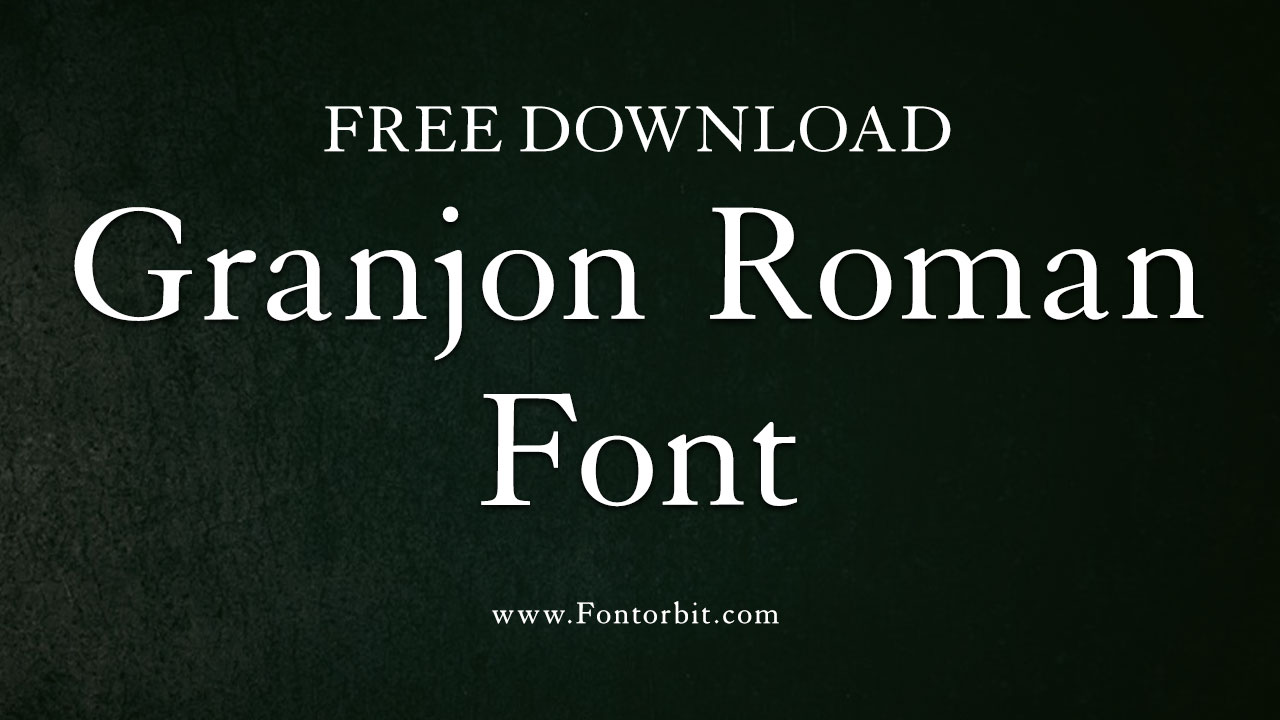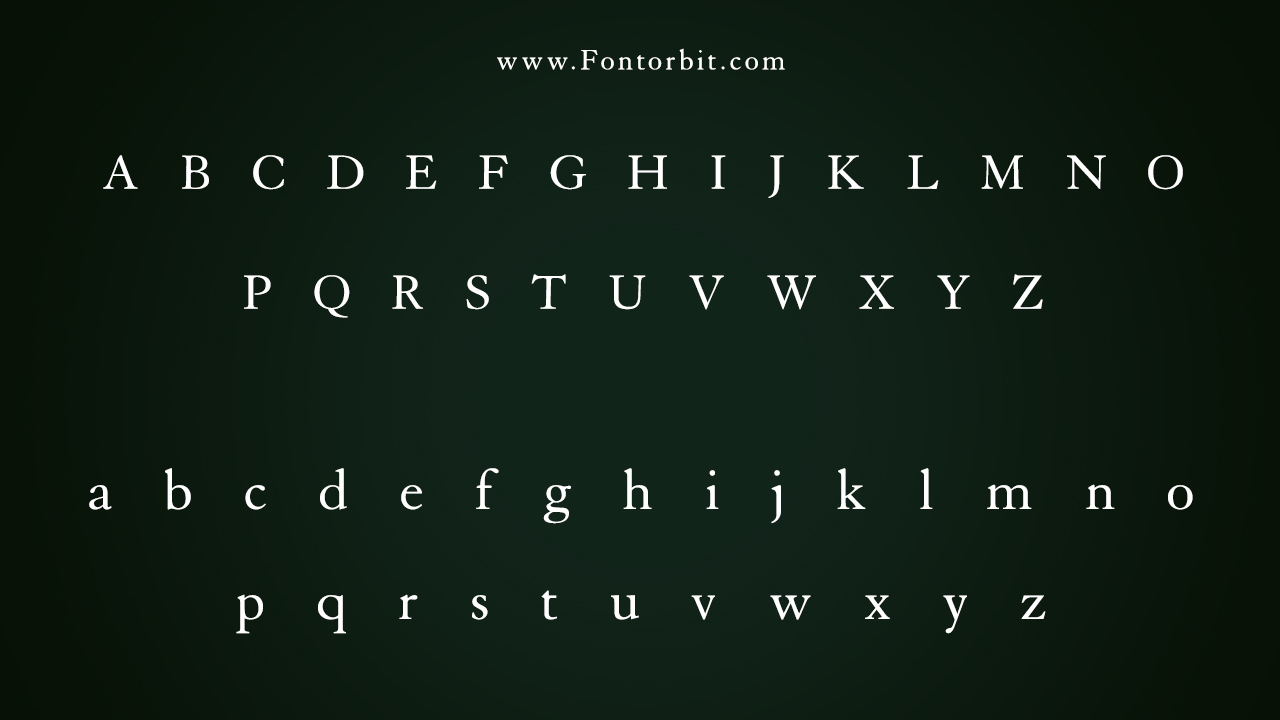
The Granjon Roman Font, crafted by Claude Garamond, George W. Jones, and Robert Granjon, is a sophisticated serif typeface that captures classic elegance. Published by Linotype in 1928, Granjon Roman is a reproduction of Garamond’s 1592 design.
With its timeless aesthetic, the font features graceful curves, sturdy serifs, and a balanced design that lends itself to various applications, from editorial layouts to branding materials.
Granjon Roman Font Family
a. Granjon Roman Regular
Granjon Roman is available in TTF (TrueType Font) format, ensuring compatibility with various devices and software. Its clean lines and refined proportions make it ideal for print and digital projects, ensuring readability and a touch of sophistication.
- Book Layouts
- Editorial Design
- Website Design
- Branding Materials
- Marketing Campaigns
- Corporate Documents
Granjon Roman is perfect for projects that require a classic and elegant touch. Its versatile design enhances readability and adds a sense of sophistication to any text, making it a valuable asset for diverse design needs.
1.What Is The Granjon Roman Font?
Granjon Roman is a classic serif typeface designed by Claude Garamond, George W. Jones, and Robert Granjon, known for its refined letterforms and timeless elegance.
2.Who Designed The Granjon Roman Font?
The Granjon Roman Font was designed by Claude Garamond, George W. Jones, and Robert Granjon. It is based on Garamond’s 1592 typeface.
3.What Are The Key Features Of The Granjon Roman Font?
Granjon Roman features graceful curves, sturdy serifs, and balanced proportions, offering a classic and sophisticated look suitable for various design applications.
4.How To Use Granjon Roman Font In Branding? Use It For Book Layouts, Editorial Design, branding materials, and marketing campaigns to add a touch of classic elegance and enhance readability.
5.What Are The Alternatives To The Granjon Roman Font?
Similar fonts include Garamond, Bembo, Palatino, and Caslon, offering elegant serif styles with timeless appeal.